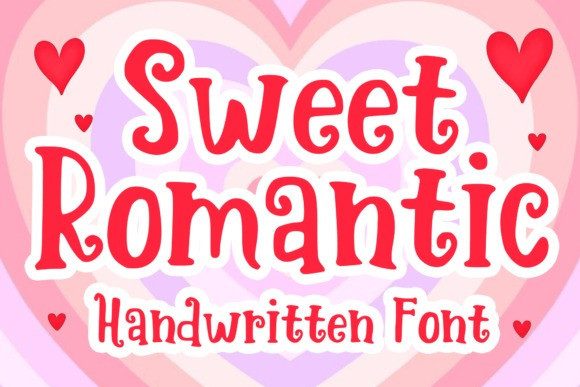
Sweet Romantic Font
Sweet Romantic Font a vibrant and user-friendly decorative font, artfully inspired by the joyous essence of Valentine’s Day.
It is an ideal tool that amplifies the appeal of various design projects, delicately waltzing from attention-grabbing tees to captivating book covers, injecting vitality into each masterpiece.
Its playful allure is perfect for invigorating sticker designs, adding a spark to logos, vivifying comic illustrations, and introducing a hint of fun into ordinary typing tasks. Sweet Romantic doesn’t merely amplify your designs, it drapes them in a captivatingly cool aura that’s truly unforgettable!